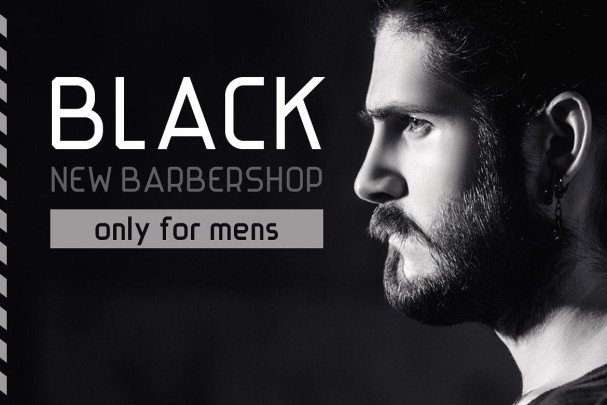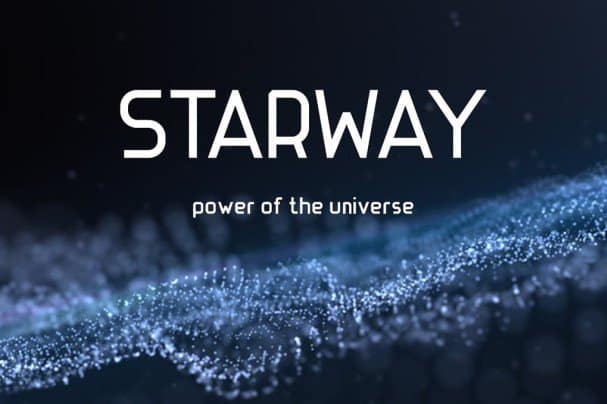
Starway Font
Starway Font is famous for its specific textual content generator. This typeface is much like the¬†jaapokki font and it’s far to be had for personal use. It’s far available in eight weights presenting loads of glyphs and italic variations as properly. The font you operate is important trouble of identical time as designing an identification.
The triumphing-day weights live real to the fashion and style of style font with the familiar easy traces, stylish shapes, a mixture of technical straightforwardness and natural warmth. Starway Font Free Its topographies excessive capital letters composed out through a mixture of small and pinnacle-notch lowercase fonts. You could moreover apply it to your internet web page or emblem layout. Categorically brilliant suitable to expose and evaluations of importance, this may be an outstanding accumulation in your font series.